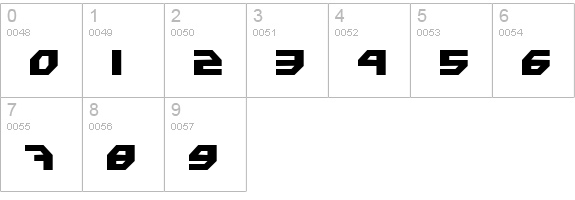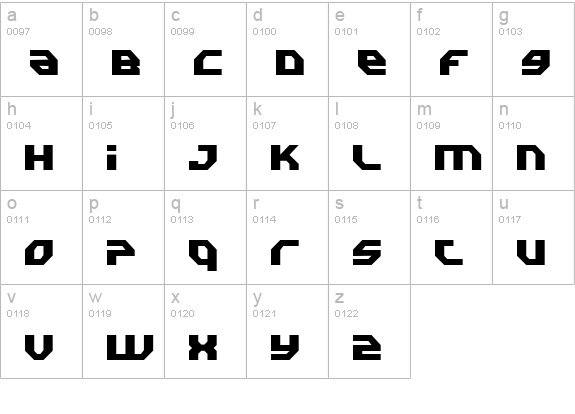
Uranium Font Details
Introducing Uranium font, a captivating typeface that exudes a sense of power and innovation. With its sleek and modern design, Uranium font is sure to make a bold statement in any project or design endeavor. Its sharp edges and unique letterforms give it a distinct and cutting-edge appeal, making it perfect for logos, headlines, and other attention-grabbing design elements. But what truly sets Uranium font apart is its availability as a free download. Yes, you read that right – Uranium font is freely available to download at FontsMarket.com. This means that you can easily access and utilize this remarkable font without any cost, making it an ideal choice for budget-conscious designers, students, and anyone seeking high-quality typography without breaking the bank. Whether you're a professional designer looking to enhance your portfolio or a hobbyist experimenting with creative projects, Uranium font offers a wealth of possibilities. Its versatility allows it to seamlessly adapt to various design styles and applications, whether it be digital or print. Uranium font's legibility and readability ensure that your message will be effectively communicated to your audience, while its unique aesthetic adds a touch of sophistication and originality to your work. Its sleek and contemporary look will undoubtedly captivate attention and leave a lasting impression. So don't miss out on the opportunity to download Uranium font for free at FontsMarket.com. With its striking design, versatility, and accessibility, this font is an invaluable asset for any designer or creative enthusiast. Embrace the power of Uranium font and unleash your creativity today!